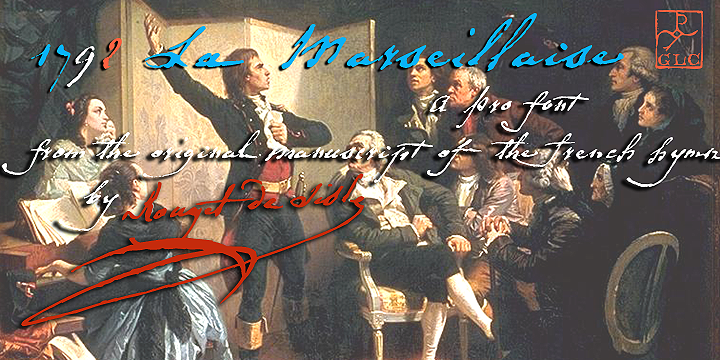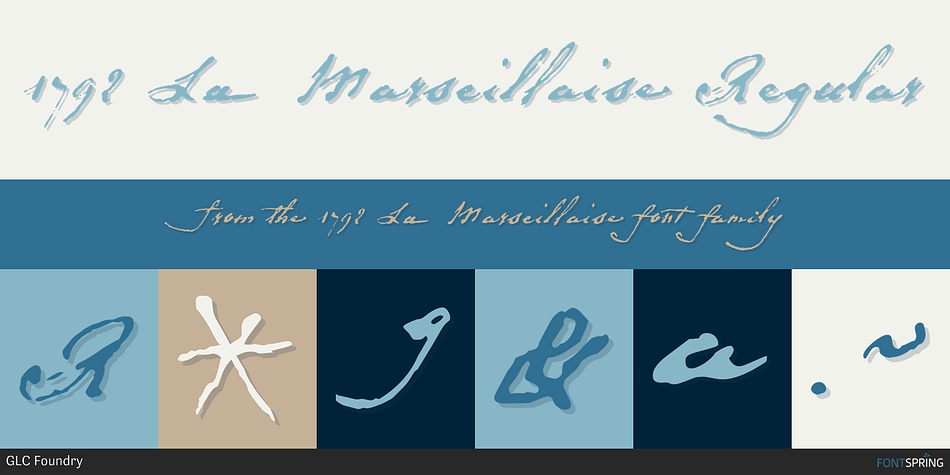
1792 La Marseillaise Regular
1792 La Marseillaise is a historical and script font published by GLC Foundry.
This font, was created inspired from the original manuscript of the French revolutionary song "La Marseillaise", becoming later the French national hymn, composed in one night (1792 April 25th) by the 32 years old French captain Rouget de Lisle.
This font, was created inspired from the original manuscript of the French revolutionary song “La Marseillaise”, becoming later the French national hymn, composed in one night (1792 April 25th) by the 32 years old French captain Rouget de Lisle.
It is a “Pro” font containing Western (including Celtic) and Northern European, Icelandic, Baltic, Eastern, Central European and Turquish diacritics.  The numerous alternates and ligatures allow to made the font looking as closely as possible to the real historic hand. Using an OTF software, the features allow to vary each character without anything to do but to select contextual alternates and standard ligatures and/or stylistic alternates options.
Styles Historical, Script